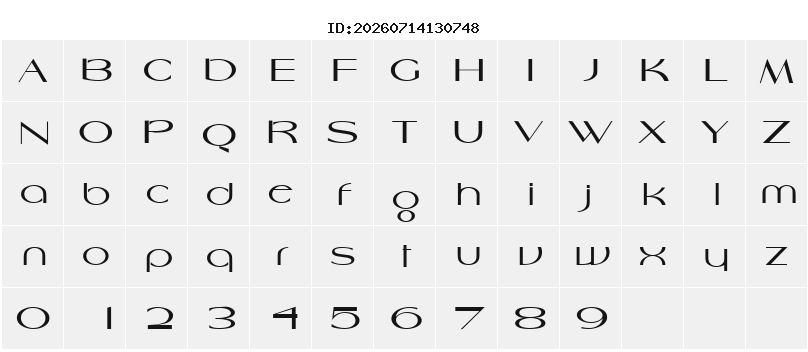
Harlesden DB Preview
• Font Name: Harlesden DB
• Full Font Name: Harlesden-Regular DB
About Harlesden DB.ttf
Harlesden DB.ttf is a modern, elegant sans-serif font designed for ultimate readability and visual harmony. Perfect for branding, headlines, web design, and print materials.